Chinese Simplified UI font is glitched and using the super old font
Chinese Simplified UI font is glitched and using the super old bitmap "SimSun" font (also called "宋体"), it should be "Microsoft YaHei UI" (also called "微软雅黑") since Windows Vista
It is correct in Audition, but it is bugly in After Effects
In Audition:
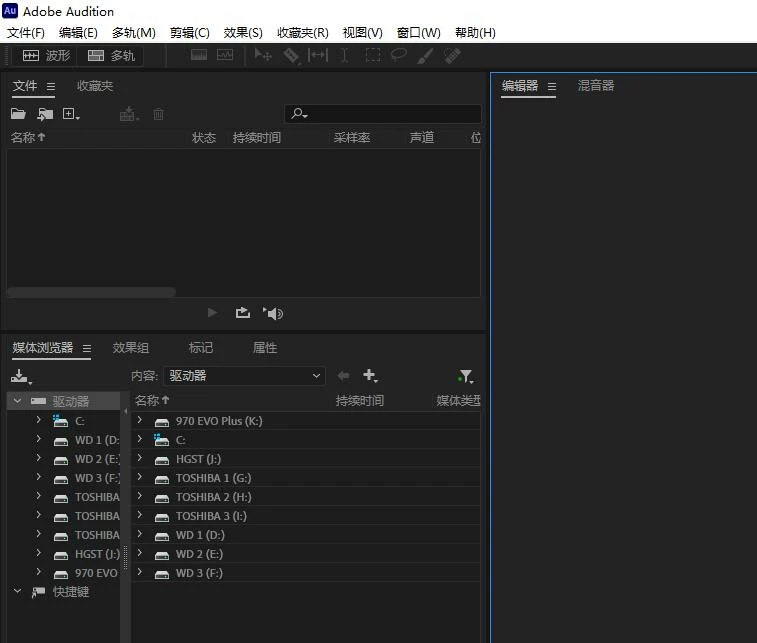
Here is the "SimSun" font in After Effects, it is super ugly isn't it?
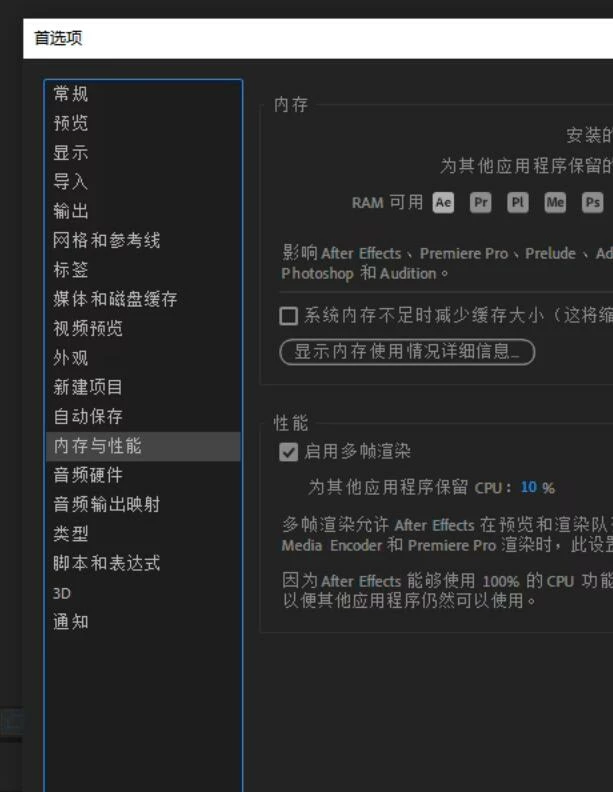
I think this is the reason why SimSun will appear, this is easy to fix isn't it?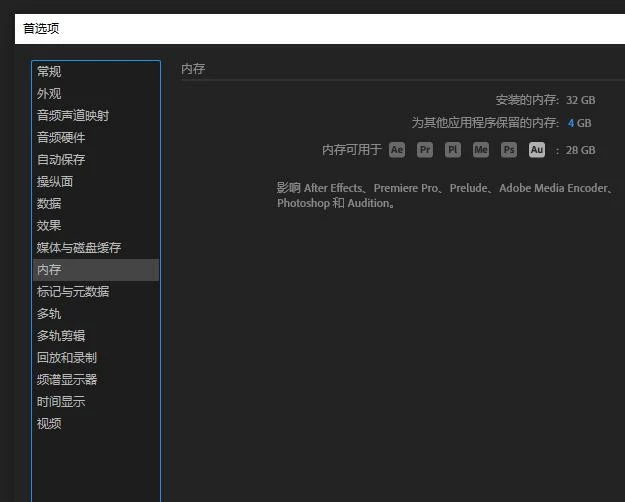